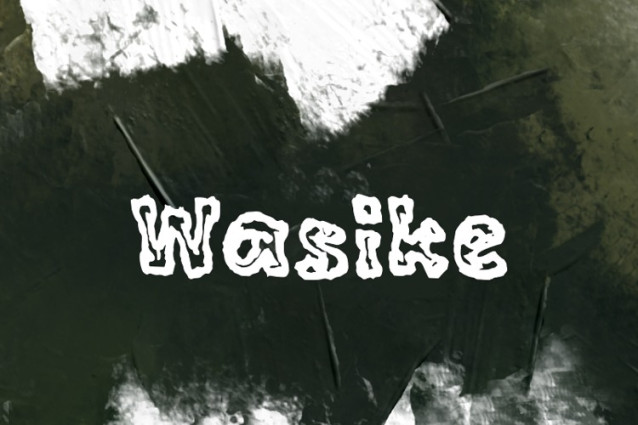
Wasike Font
Wasike Font, perfectly fit for branding, logo, wedding things, greeting cards, fashion, lookbook, marketing promotion, anytime you want to look fancy elegant but still casual.